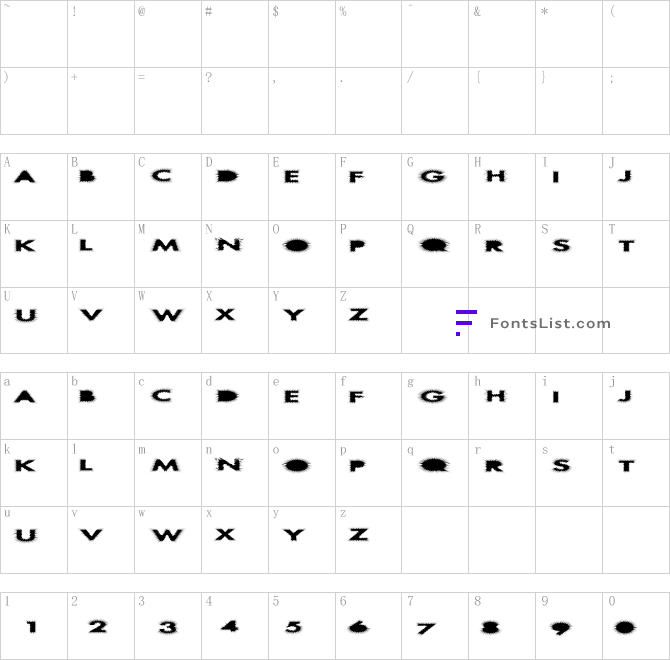
- Font Name:AlienFur
AlienFur.ttf is a very beautiful artistic font, AlienFur.ttf is widely used in the design and printing of various books and pictures,AlienFur.ttf has a strong visual impact,AlienFur.ttf is a commonly used font in newspapers, magazines and books, and is used in posters, e-commerce Poster design, store design, logo design, font design and other fields.AlienFur.